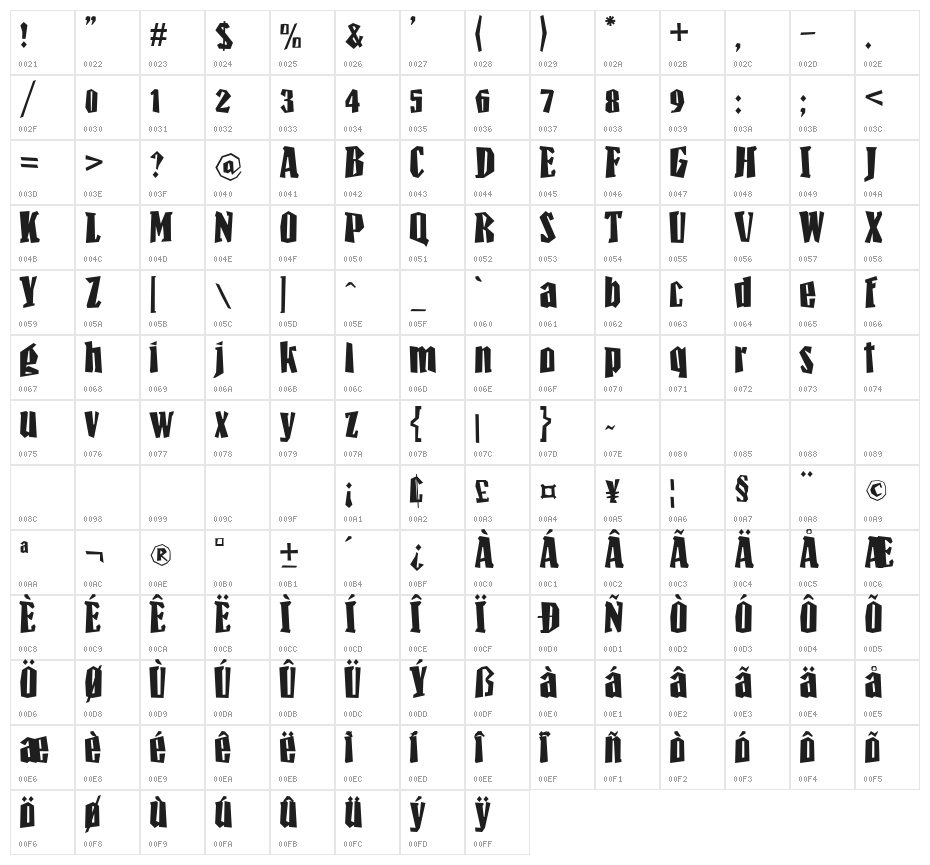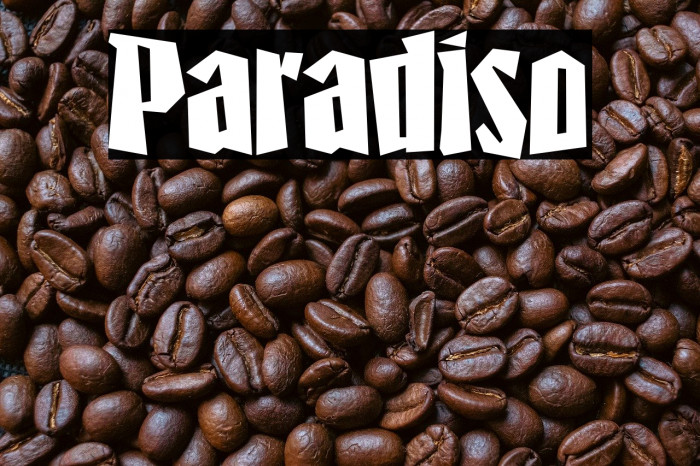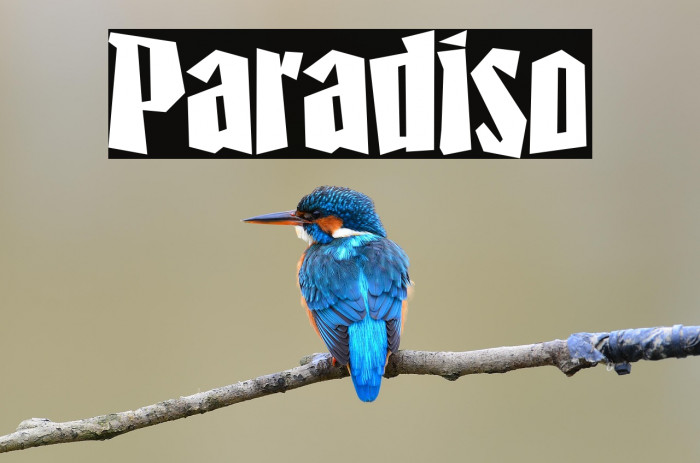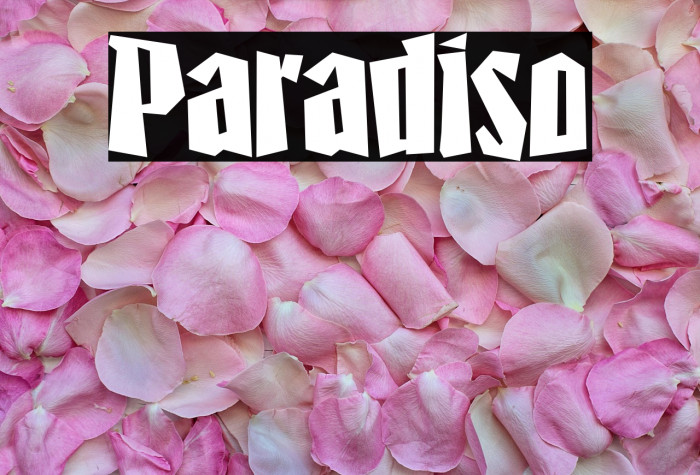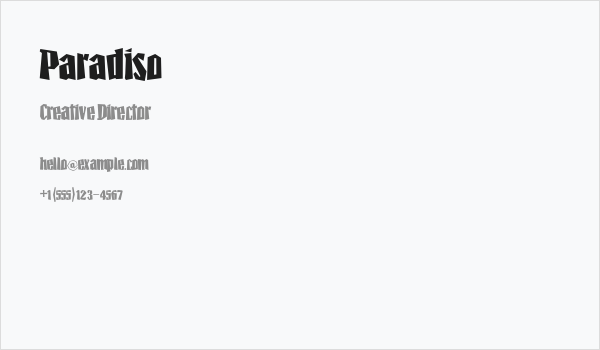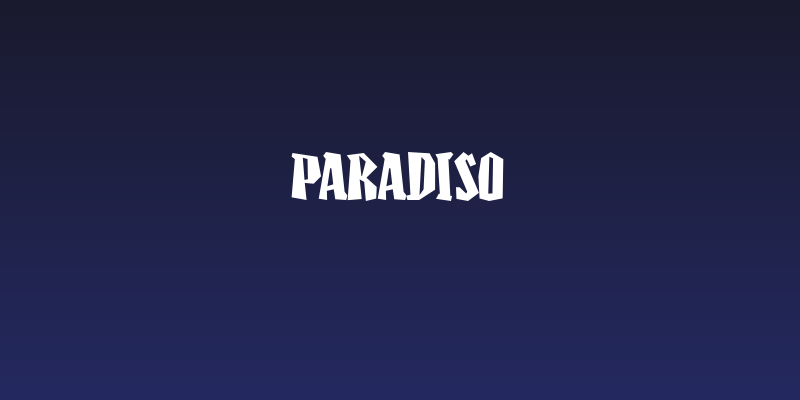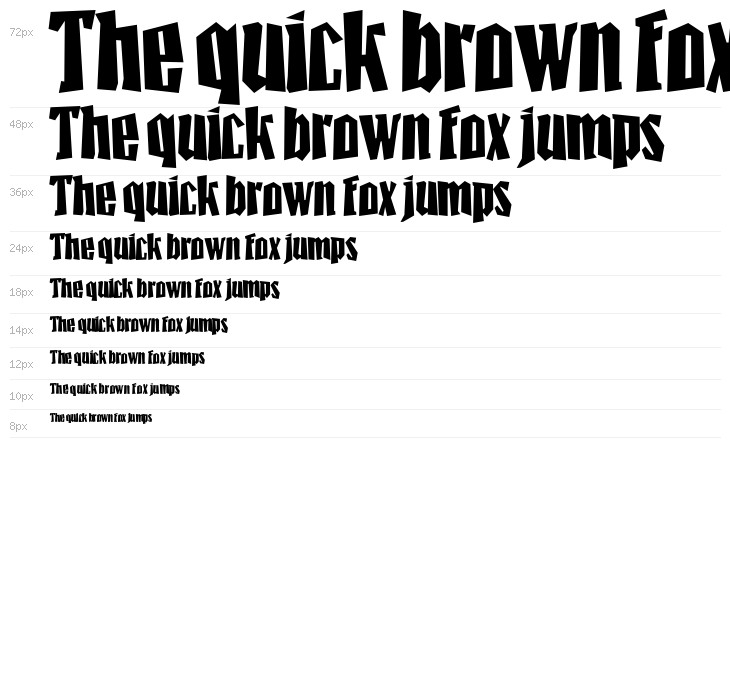
Paradiso Font
Paradiso Description
This font features a bold and dynamic style with sharp, angular edges and a slightly irregular form that gives it a unique, edgy appearance. The uppercase and lowercase letters maintain a consistent height, contributing to a cohesive look. The numerals and special characters follow the same bold and angular design, ensuring uniformity across all characters. The font's strong presence makes it ideal for attention-grabbing designs. Its distinct style is reminiscent of graffiti or street art, making it suitable for projects that require a modern and rebellious aesthetic.
| Proposed Projects | Ideal for posters, album covers, streetwear branding, and urban-themed designs. |